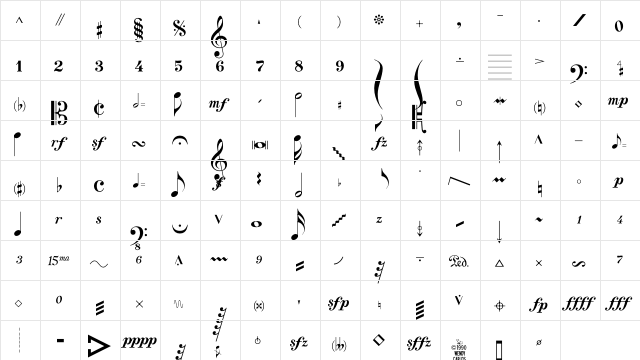
GraceNotes Regular
Design Context for GraceNotes Typeface
GraceNotes is a composed and adaptable typeface that performs quietly and consistently across a wide range of design contexts.